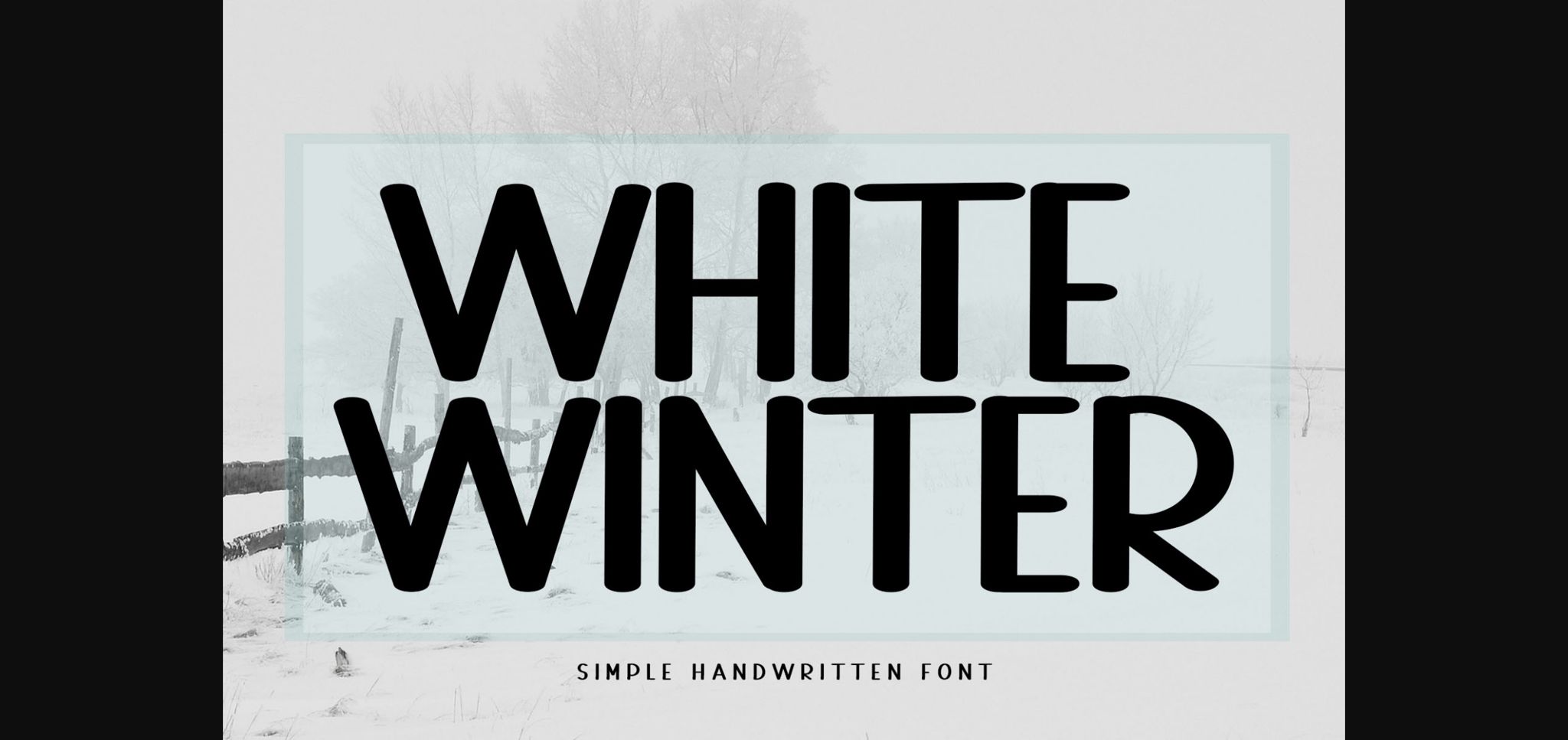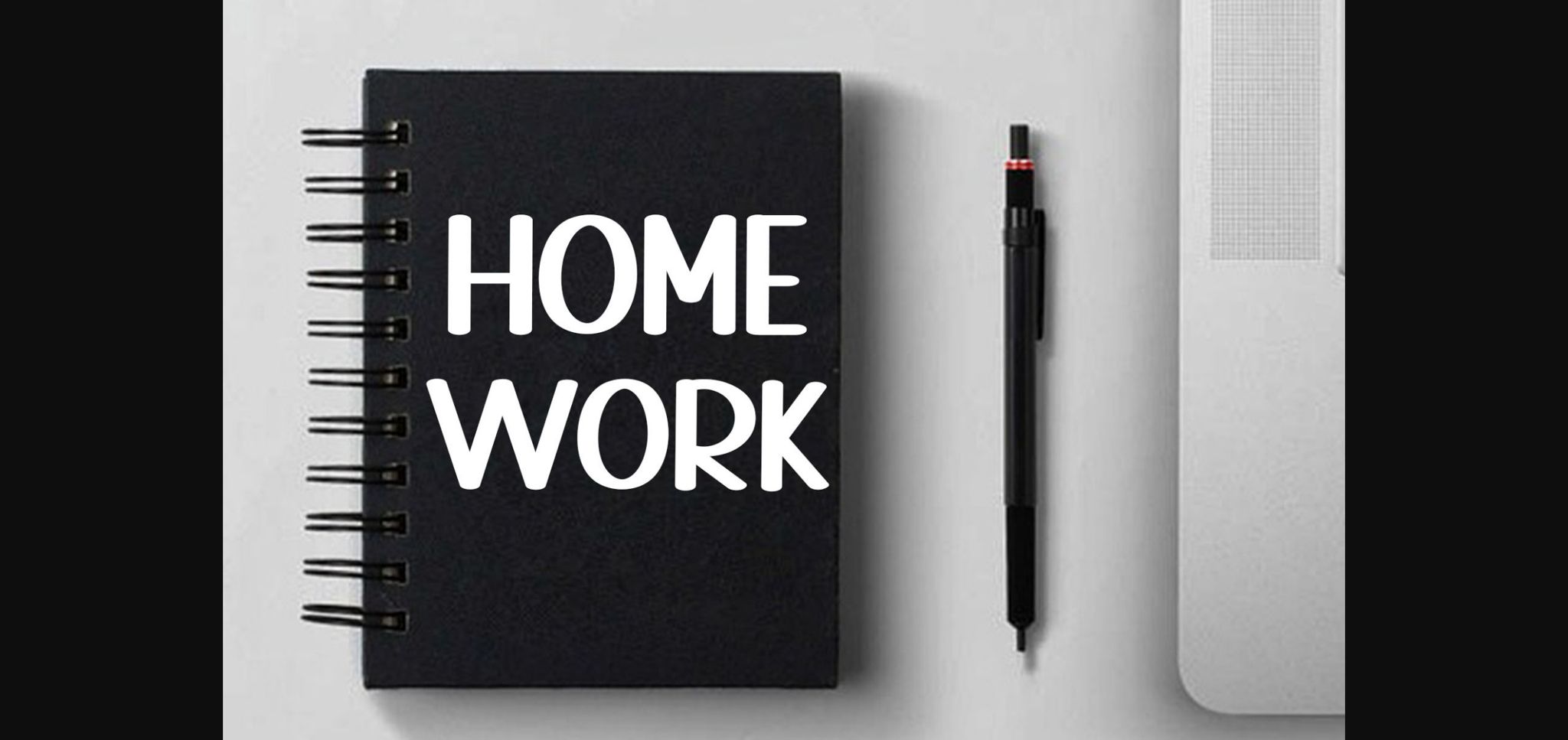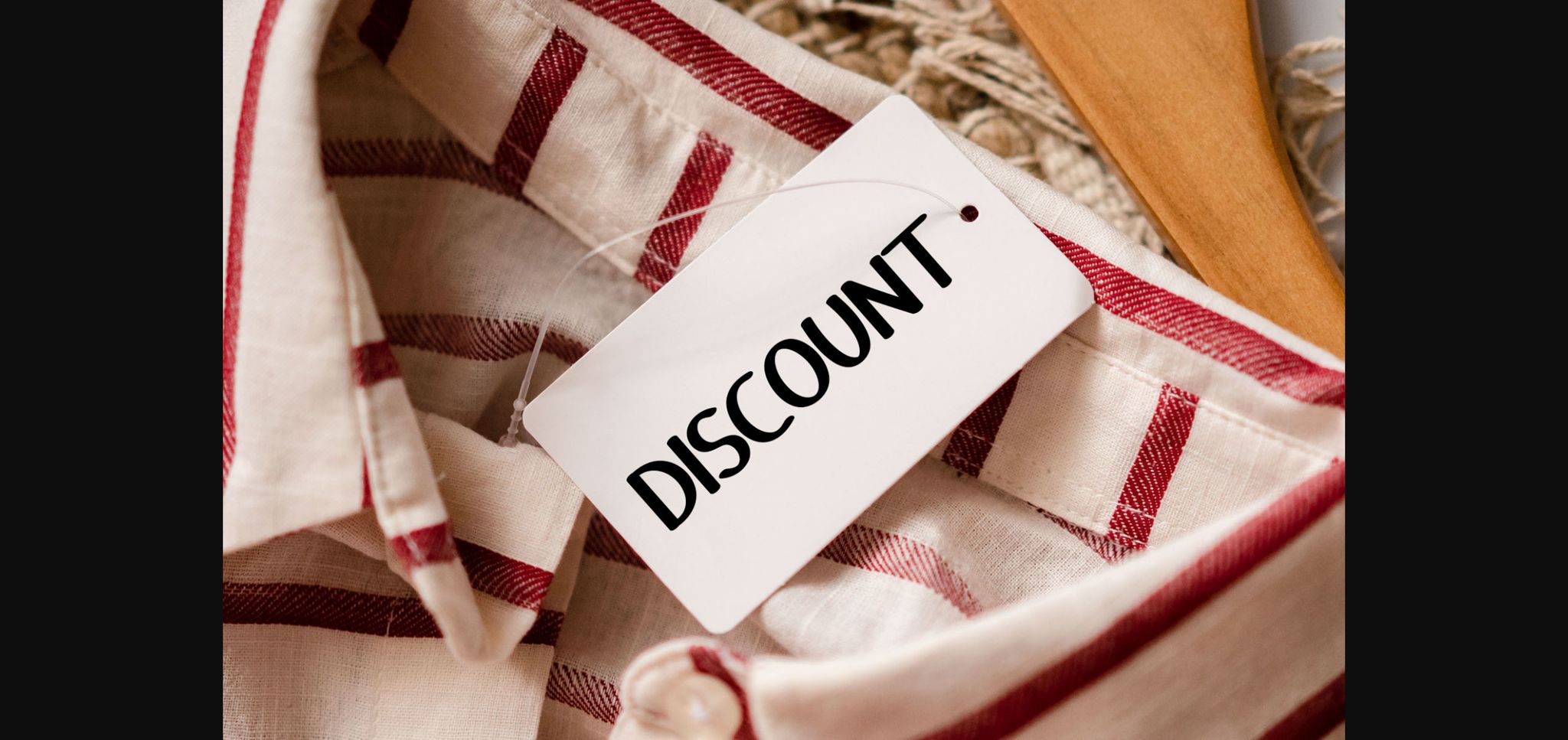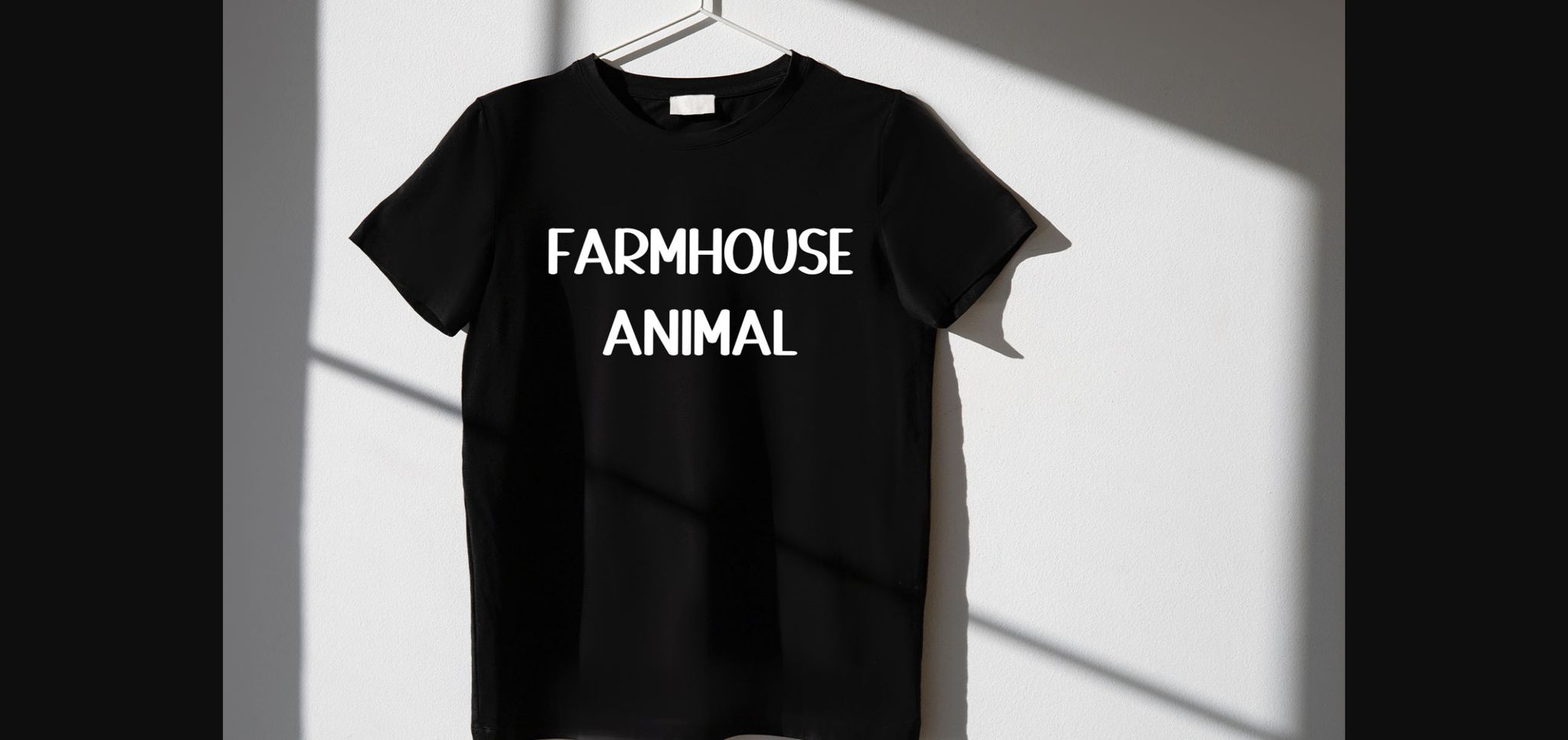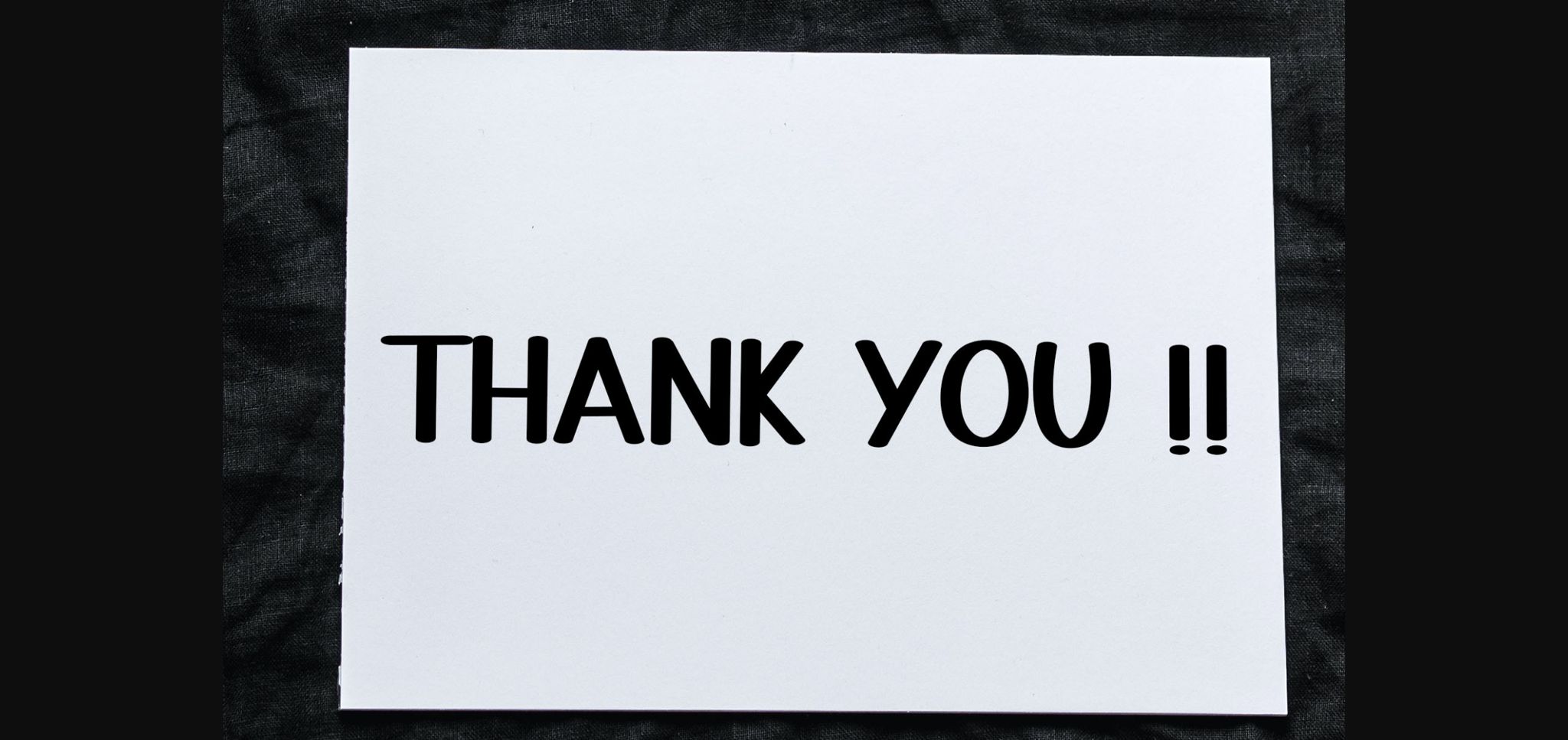
HomeSans Serif FontsWhite Winter Font Sans Serif Fonts White Winter Font FacebookXPinterestWhatsApp 1 of 7 ... White Winter Font Poster 2... White Winter Font Poster 3... White Winter Font Poster 4... White Winter Font Poster 5... White Winter Font Poster 6... White Winter Font Poster 7... About White Winter Font White winter is a fun and casual all-caps sans serif font. Incredibly versatile, this font is suitable for a wide pool of design ideas. DOWNLOAD NOW People also explored Camila Raindrop Elegant Modern Calligraphy Font Santoren Font Jagaddhita Font Wiggle Font Someday Font Ganggut Font Baby Face Font Westhampton Font Tugboat Font 276 0 TagsWhite Winter Font Previous articleNotepad FontNext articleFeria Font LEAVE A REPLY Cancel reply Comment: Please enter your comment! Name:* Please enter your name here Email:* You have entered an incorrect email address! Please enter your email address here Website: Save my name, email, and website in this browser for the next time I comment. Personal Use Free Cinderella Personal Use Free Read more about this font Drip October Font Personal Use Free Read more about this font Child Writing Free Personal Use Free Read more about this font The 10 Best Handwriting Fonts to Add Personality to Your Designs Blog Read more about this font BLOG To increase your work productivity, choose the most readable fonts. In today's fast-paced work environment, where digital communication and information consumption are integral to our daily routines, the choice of fonts can significantly impact... Fonts That Capture the Spirit of New York City Transform Your Website: Elevate Your Typography with 7 Best Web Font Generators Best Fonts for YouTube Videos: Make Your Thumbnails Stand Out